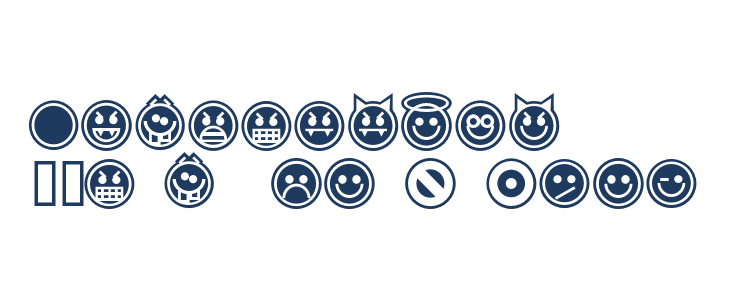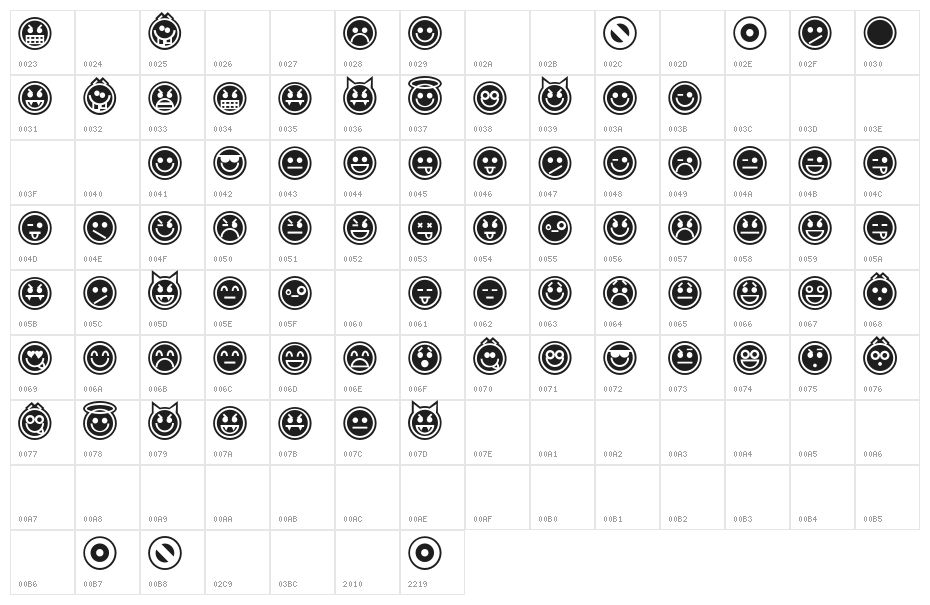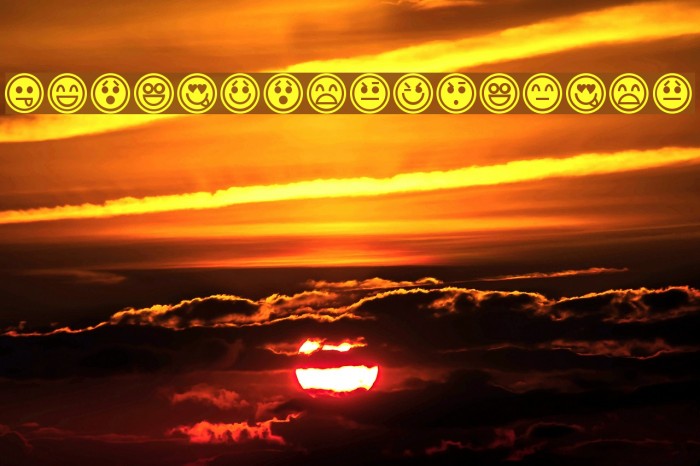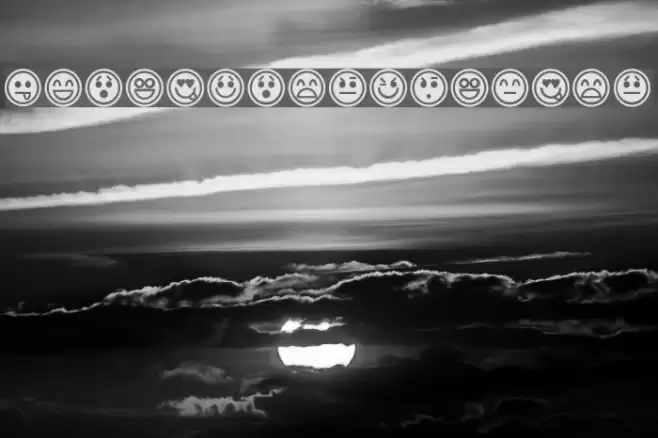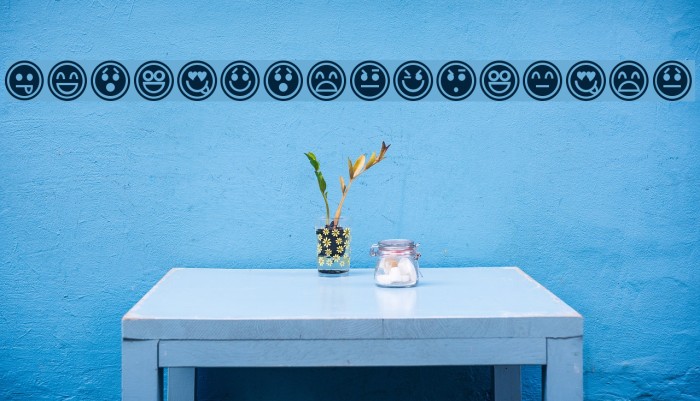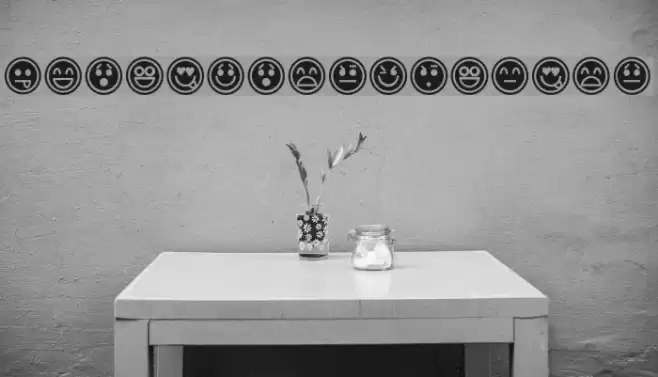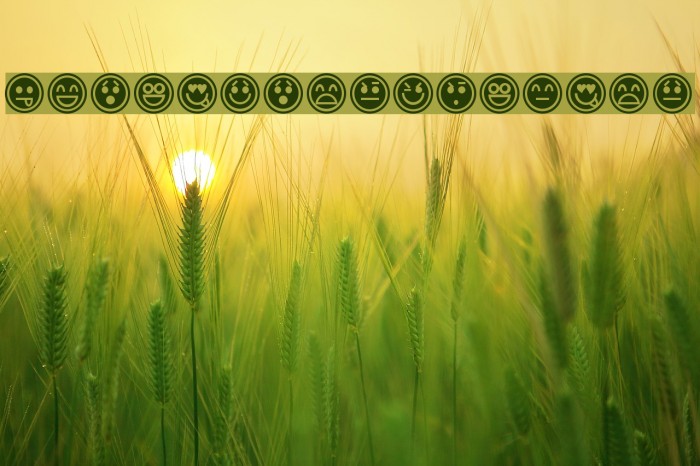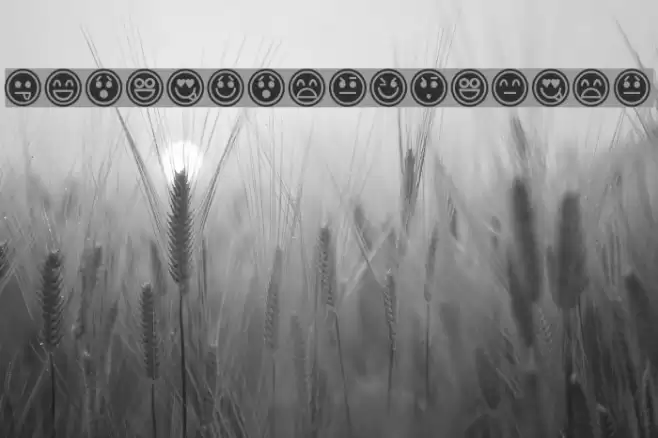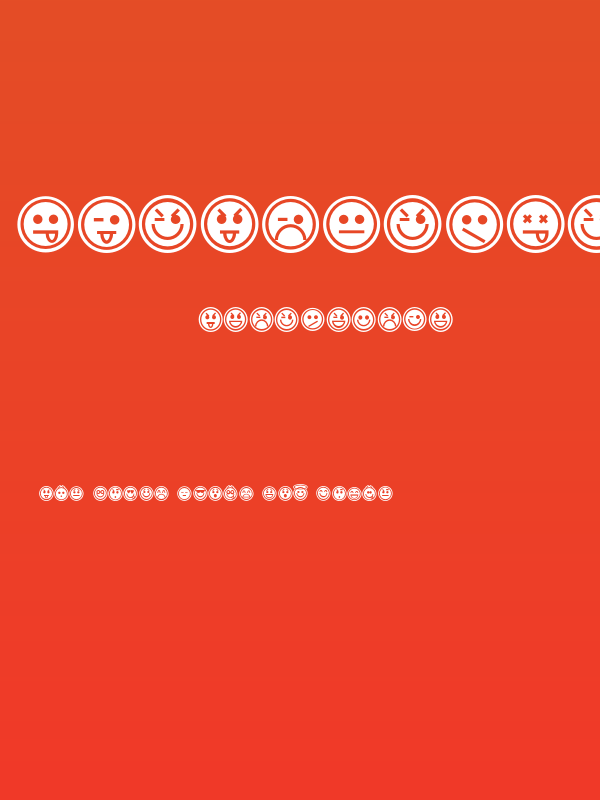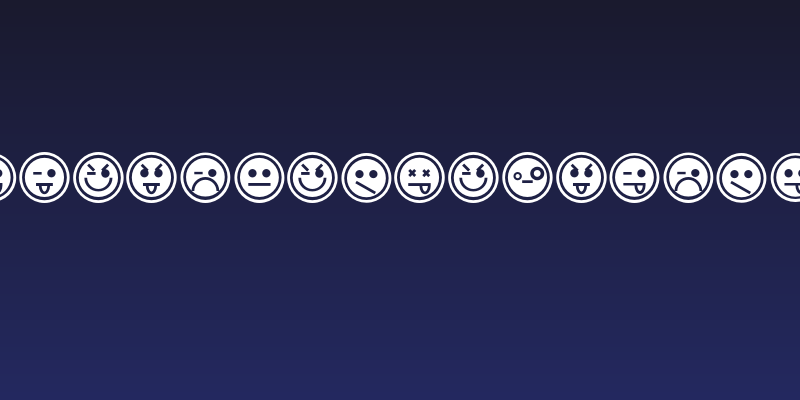
EmoticonsOutline Font
EmoticonsOutline Description
A playful, outlined icon set featuring a wide variety of emoticon faces and expressions, each enclosed in a bold circular border. The icons are consistent in style, with simple line work and high contrast between the black outlines and white fill, emphasizing clarity and expressiveness.
| Overall Style | Playful, Modern, Decorative |
| Use Case | Icons, Stickers, UI elements, Branding |
| Proposed Projects | Messaging apps, social media reactions, stickers, educational materials, playful branding, UI/UX iconography. |